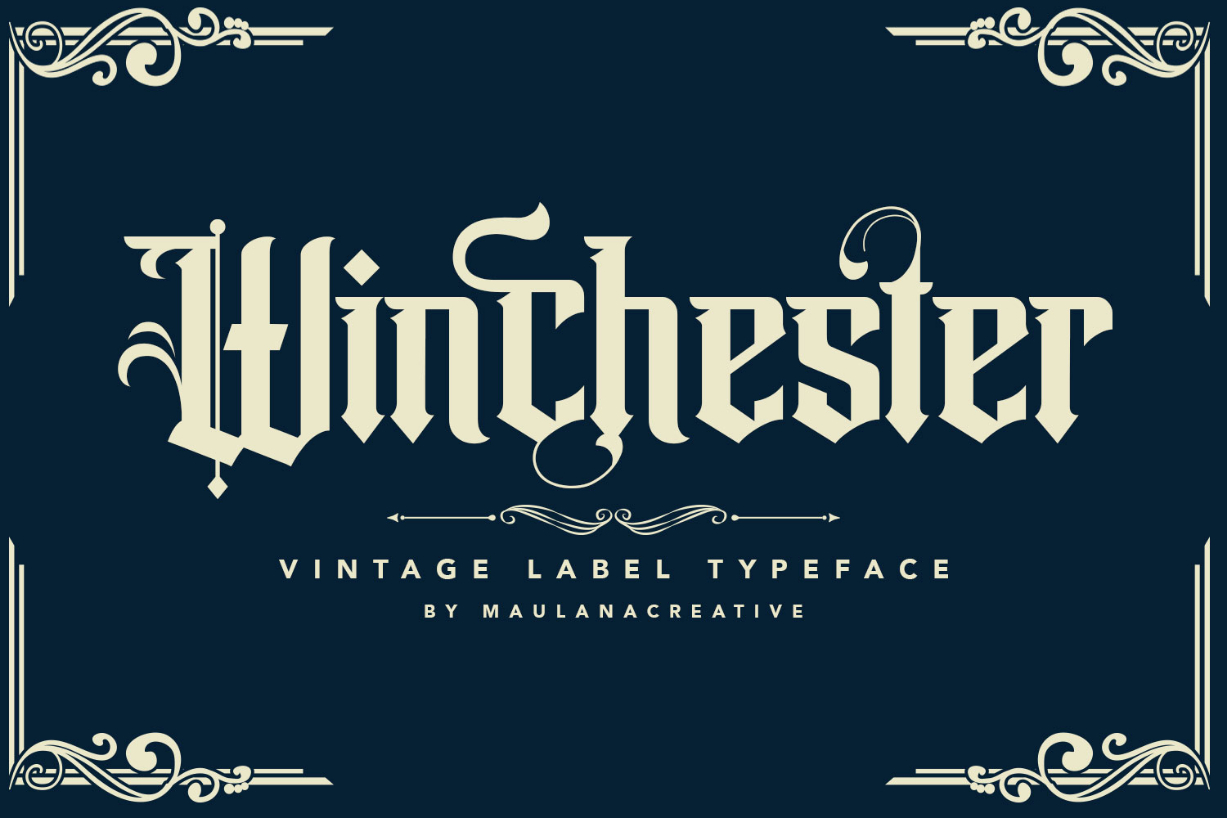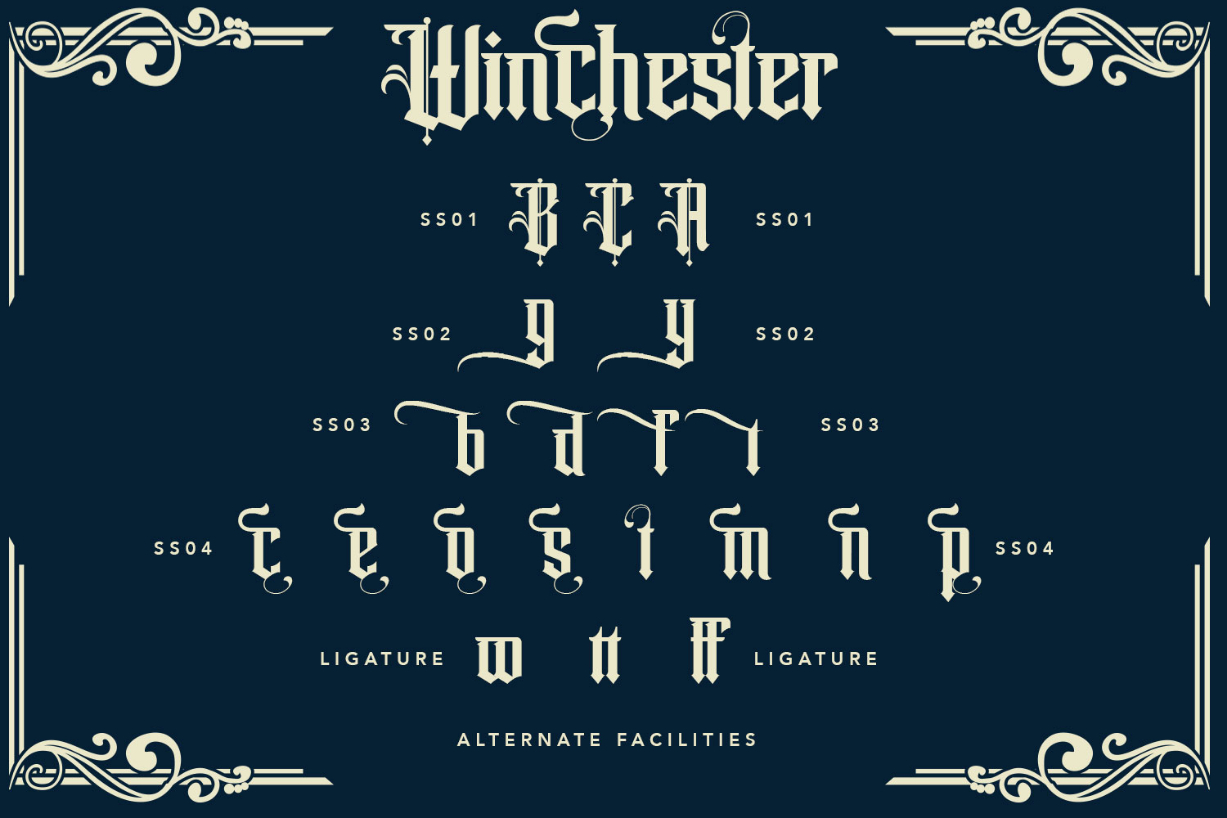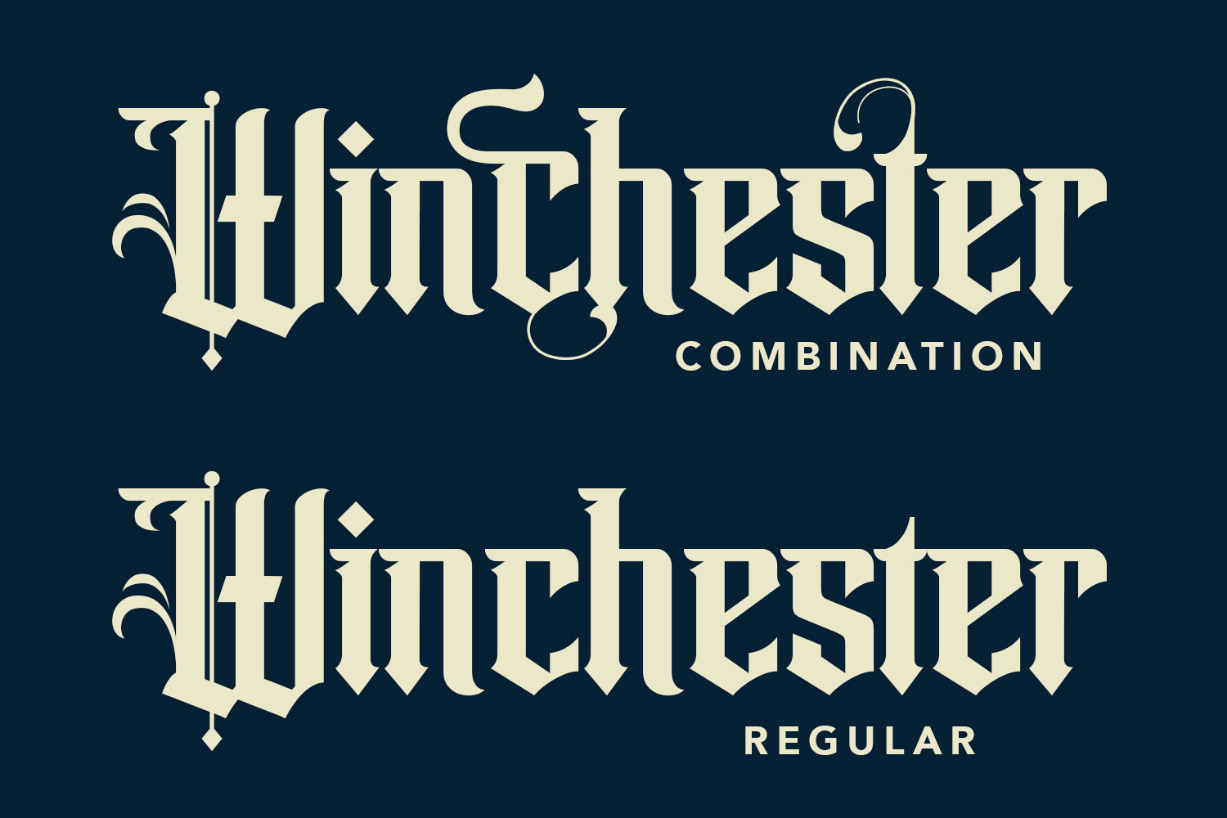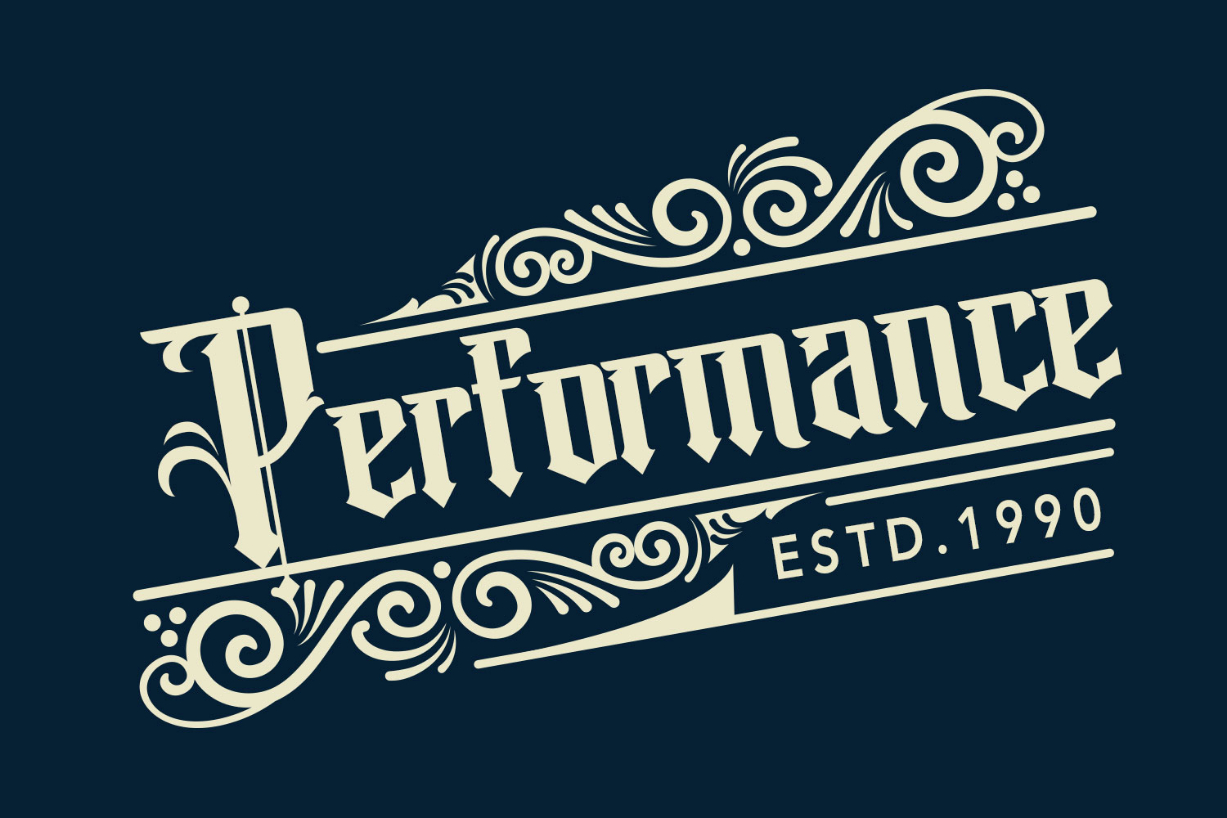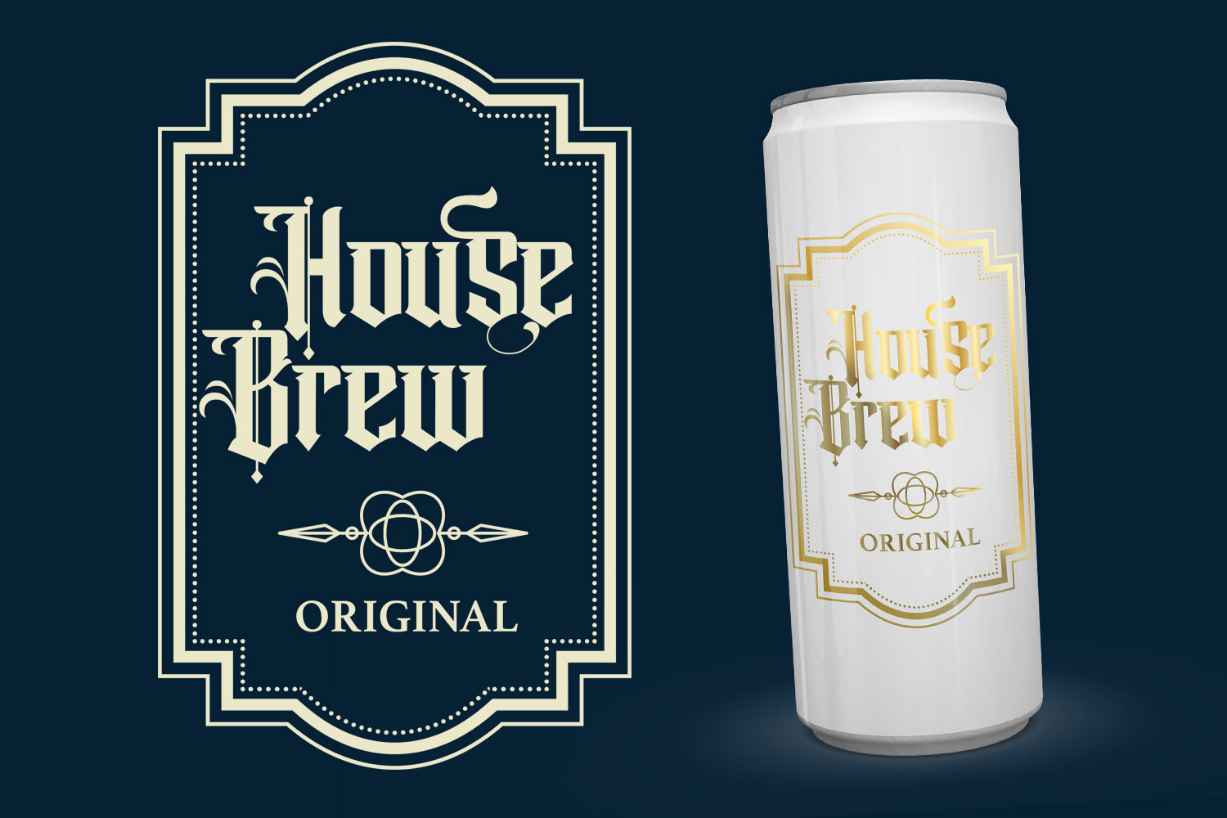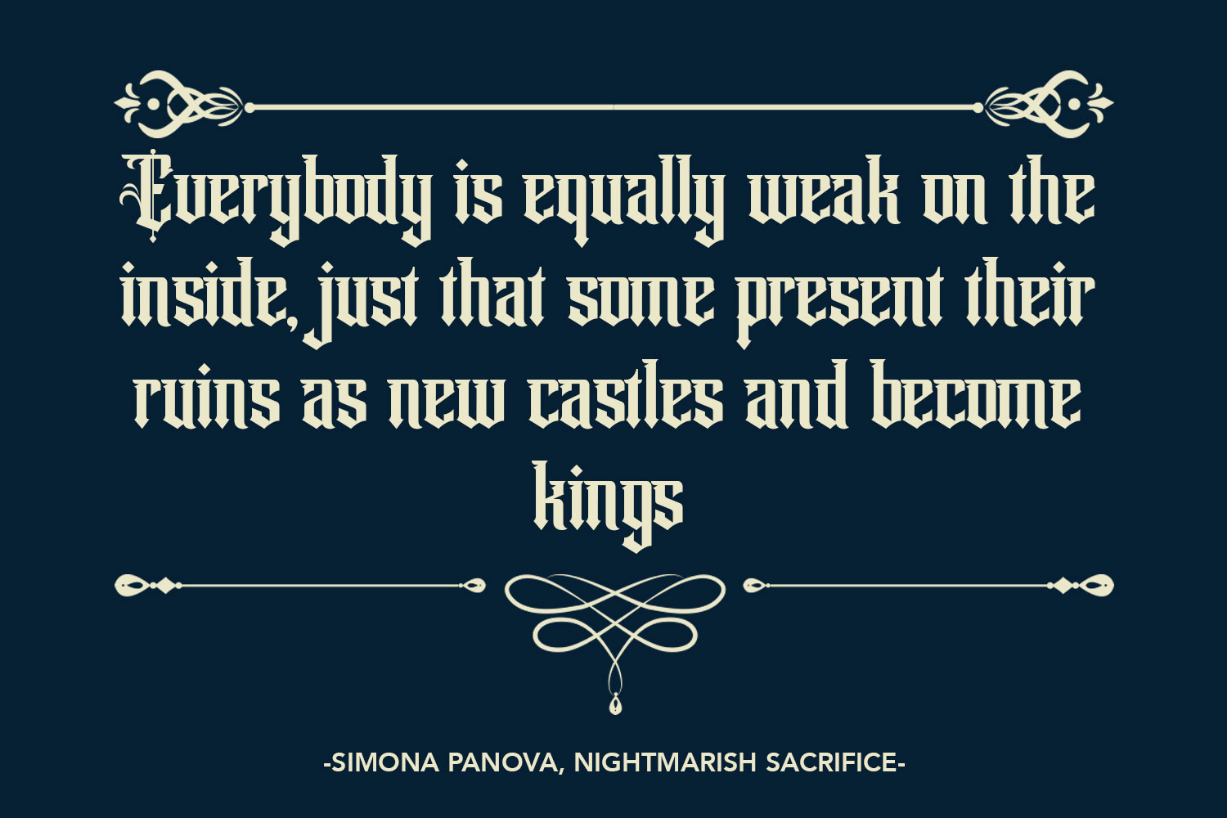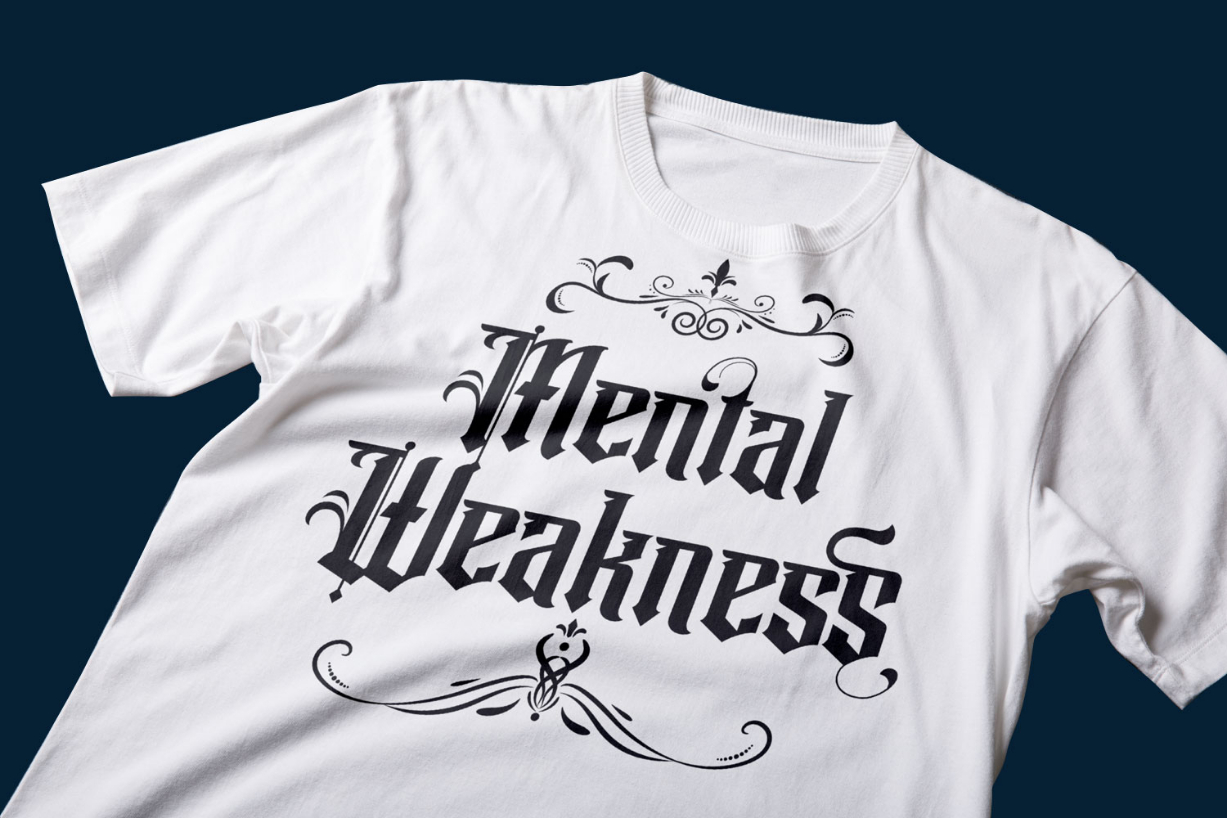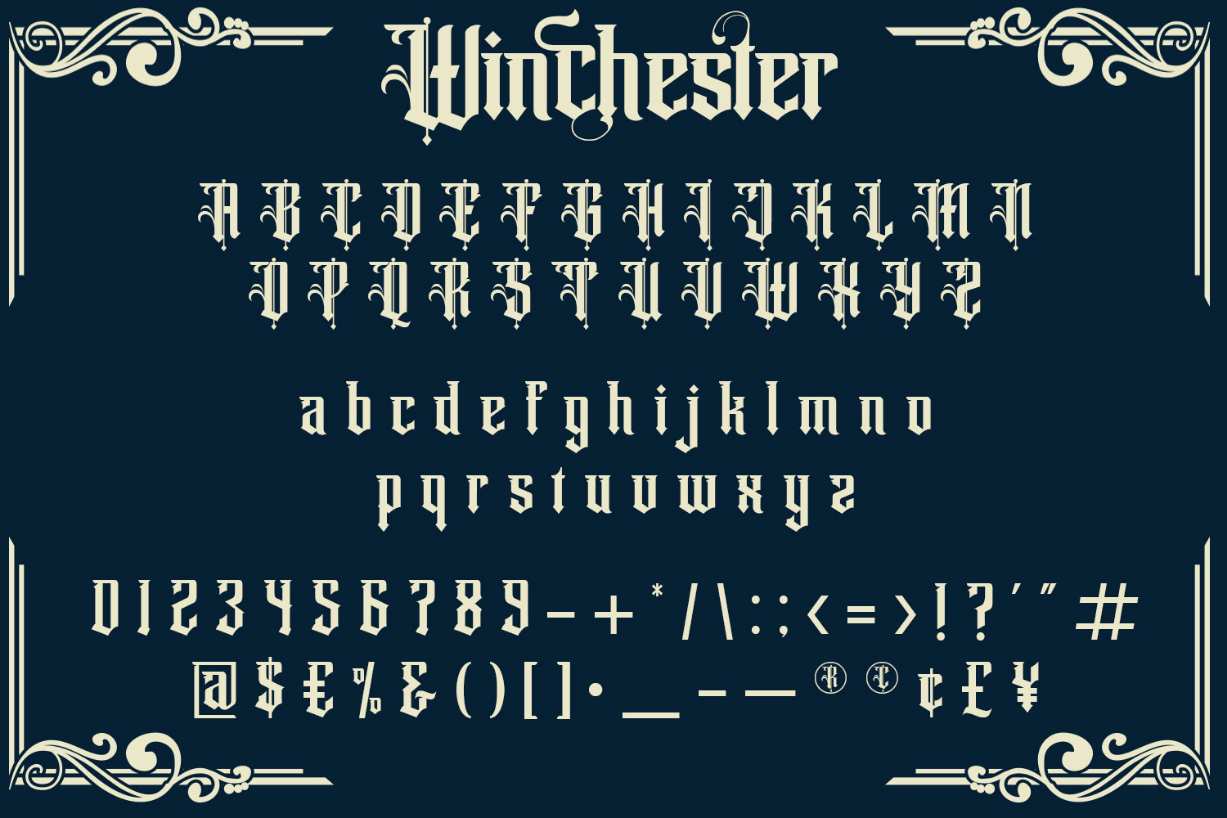
Winchester Font
About Winchester Font
Winchester is a unique and interesting blackletter font. Incredibly versatile, this font will fit a wide pool of designs.
Fall in love with its incredibly stylish look and use it to create spectacular designs!